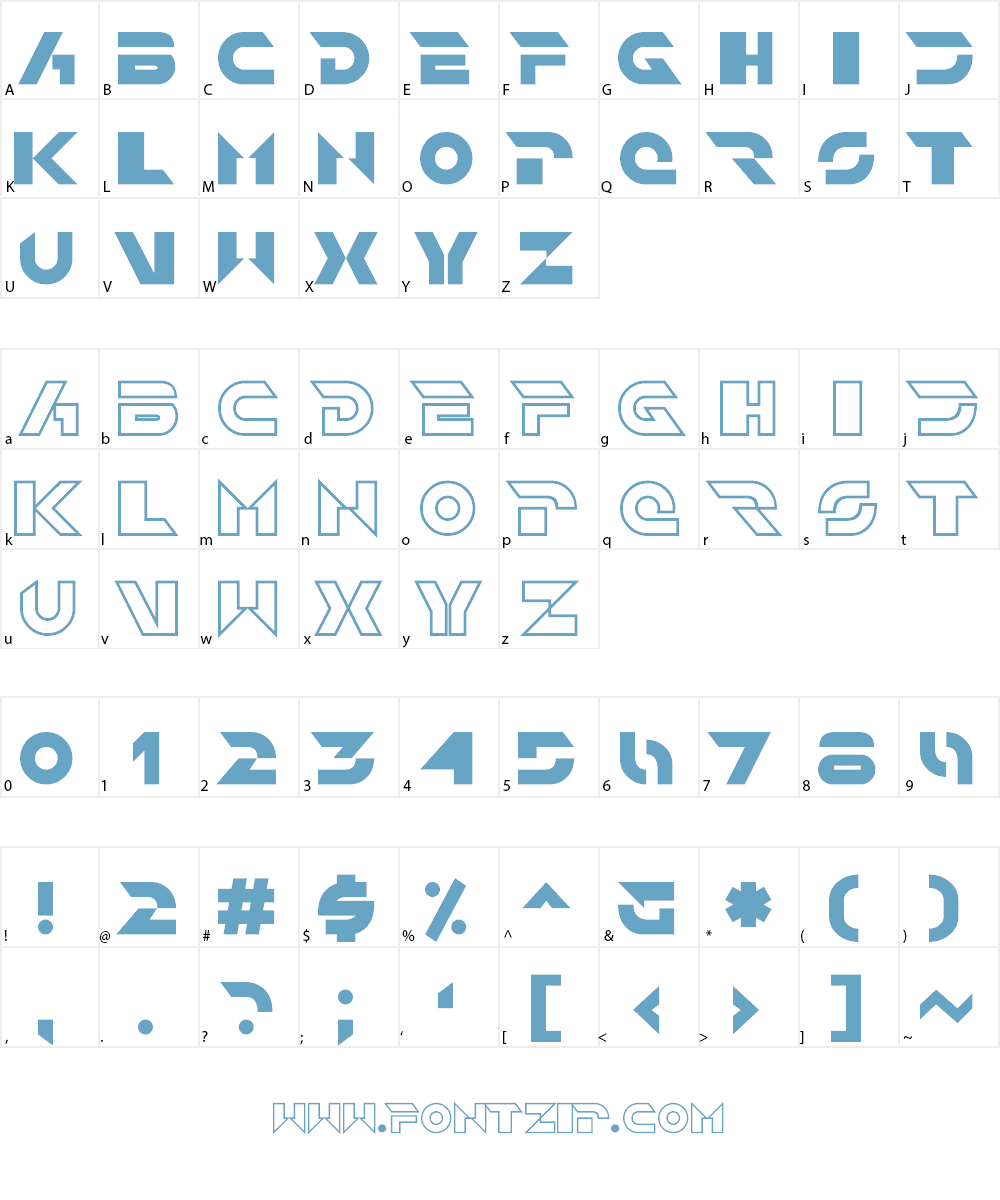
2nd font of new start today, this time an HD version of "Jet Bradley" from Fontstruct. If you don't know what this font represents, It's a font remake of the "TRON 2.0" logo.